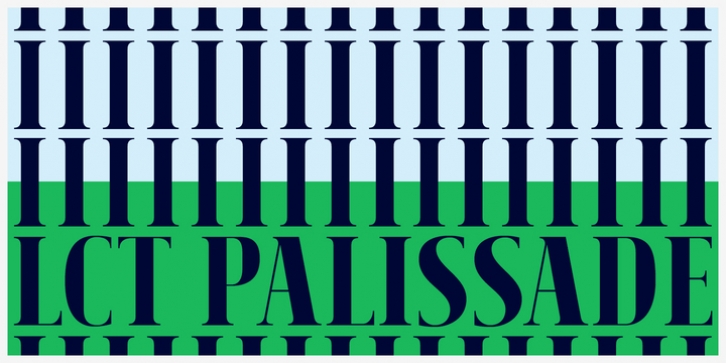
Started during 2012, LCT Palissade is a letter type belonging to the Didone classification. It takes over the Italian characters from the XVII century. Century affected by a huge artistic and industrial mutation, we assist to the eruption of the railroad network and Turner’s paintings. In typography, the Didones(XVIIe) begins to concede the place to the Egyptians XIXe. We noticed an evolution to rectangular drawings, that were heavier and darker.
LCT Palissade is in fact the study of a history flow, crossing through the industrial revolution and romanticism; the result of a strong letter type, solid, strict the drawing is orientated towards very dark, reminiscent of the characters beginning XIXe. The serifs are the summary between the British characters from the end of (XVIe) and the Italian ones beginning of (XVIIe). In order to spread out the romanticism, they are very fine to allow a largest contrast and keep the elegance of the global shape.